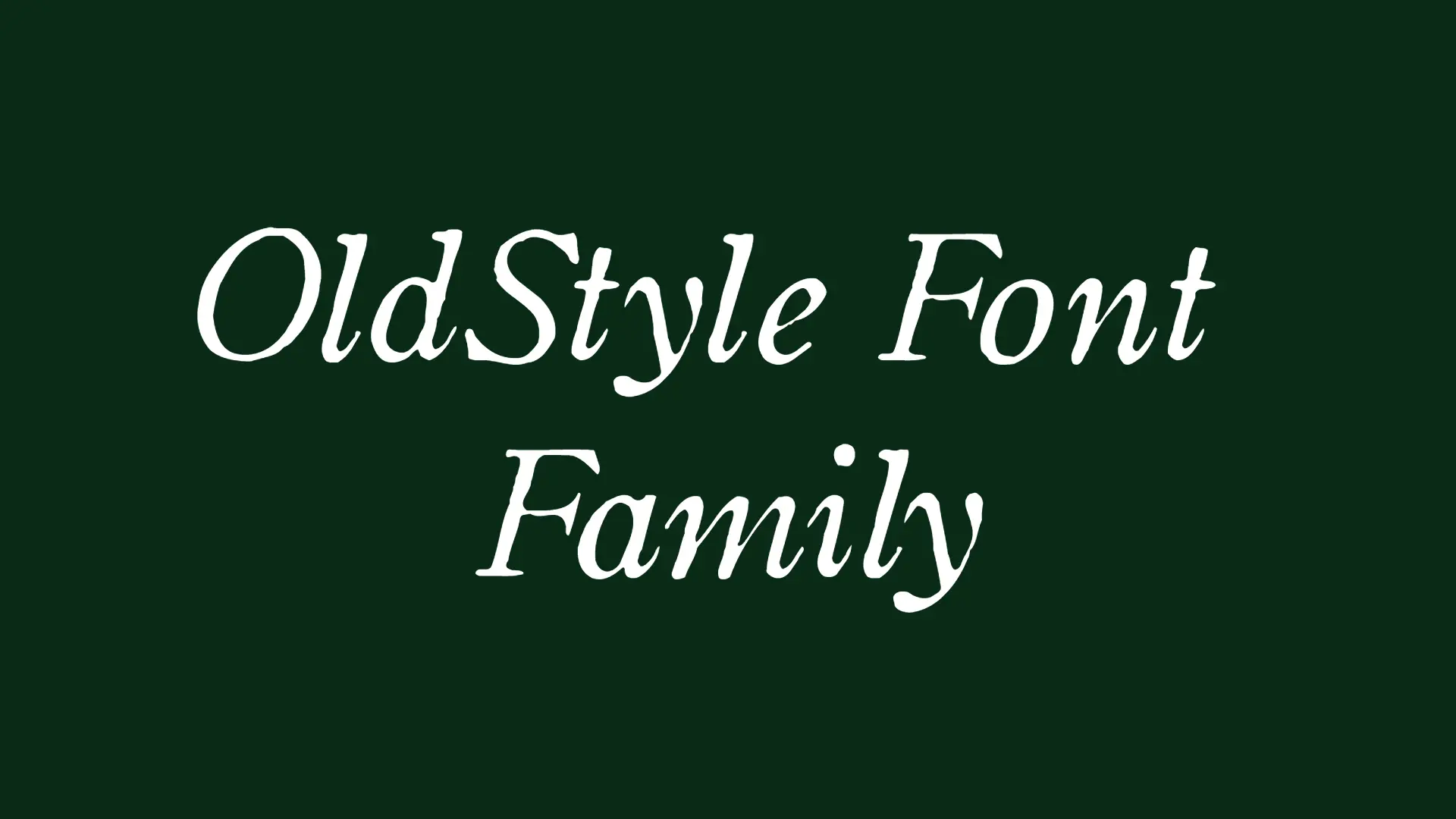
OldStyle Font Family
OldStyle Font Family is a basic font. It's a no-fuss, easy-to-read font that does its job without shouting for attention. It's a free download, and you can try it with your own text in the preview above first.
With complete upper and lowercase letters and all ten digits, OldStyle Font Family is ready for real wording, not just a single headline. Everyday marks like &, !, ? and @ are there too. Thanks to its accented letters, it also works for Spanish, French, Portuguese and Italian, not just English.
Designers usually reach for fonts like OldStyle Font Family when they're making everyday text, websites and clean logos. Fonts like this are workhorses: use them for body text, captions and anything people need to read quickly.
Yes. OldStyle Font Family includes the accented letters needed for Spanish, French, Portuguese and Italian, so it works for more than just English.
Add a more decorative display font for the headline if your design needs extra personality.